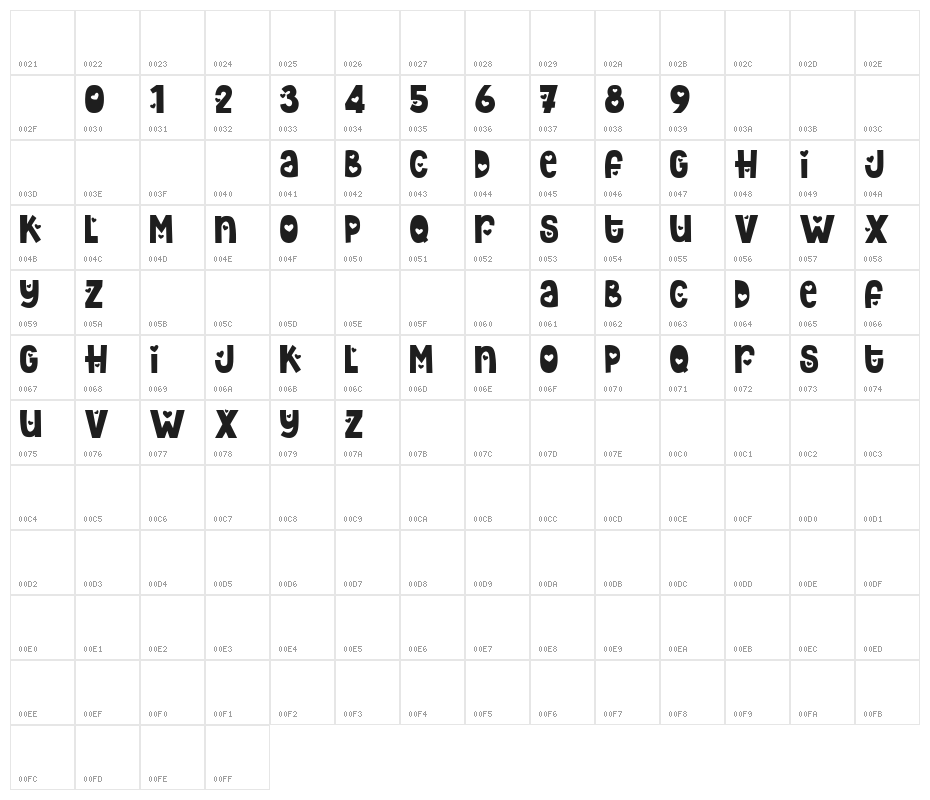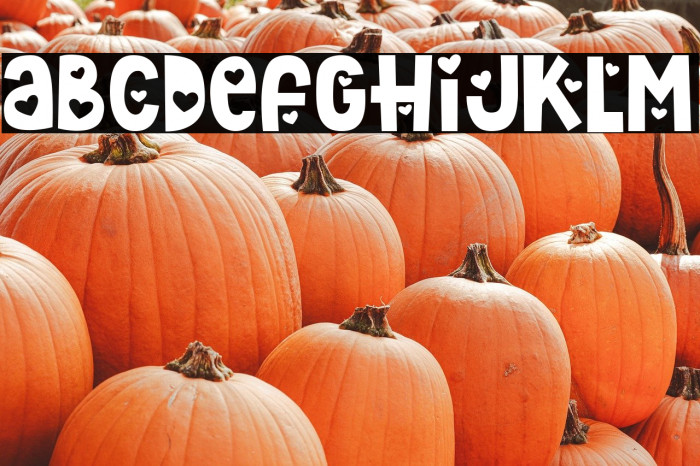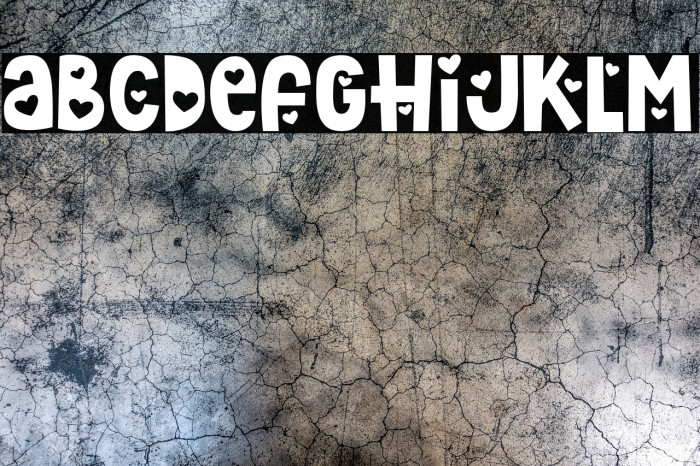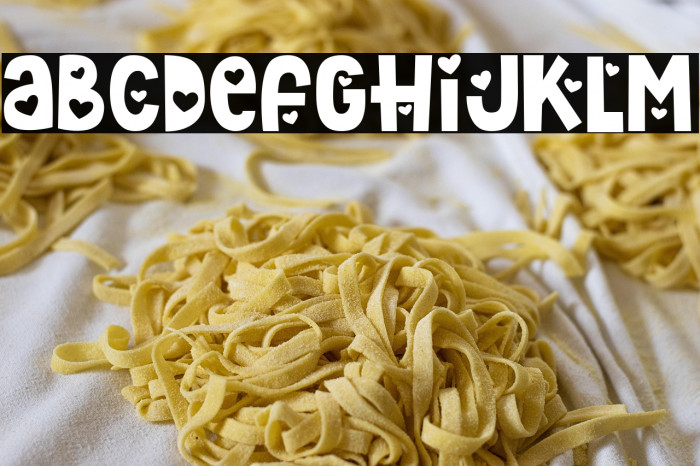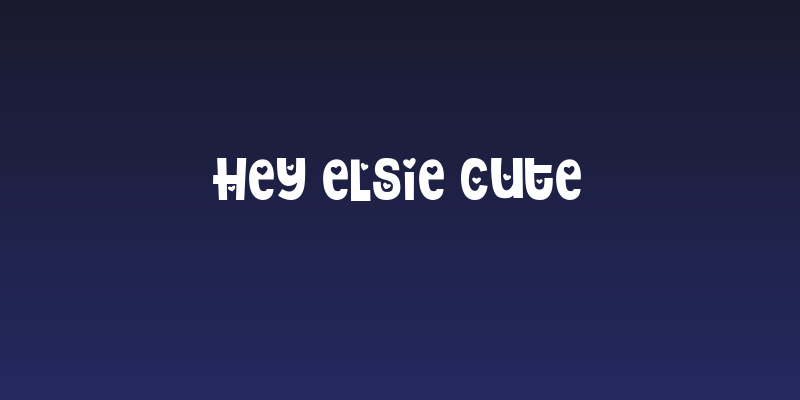
Hey Elsie Cute Font
Hey Elsie Cute Description
This playful and whimsical font features bold, rounded characters with distinctive heart shapes integrated into the design. The letters are uniformly thick, giving a consistent and solid appearance. The heart motifs add a charming and friendly touch, making it ideal for projects that require a sense of fun and creativity. The font maintains a consistent baseline and x-height, ensuring readability while still being decorative. The numbers and special characters follow the same design principles, ensuring a cohesive look across all elements.
| Use Case | Headlines, Logos, Decorative text |
| Proposed Projects | Ideal for children's books, greeting cards, playful branding, and party invitations. |